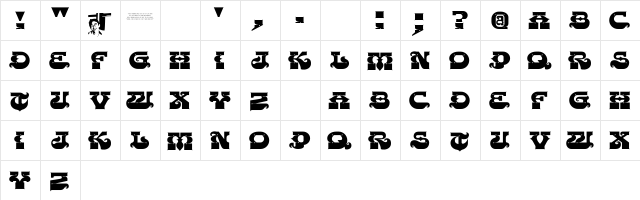
CHASE ZEN PUNJABI Regular
Design Context for CHASE ZEN PUNJABI Typeface
CHASE ZEN PUNJABI is a composed and adaptable typeface that performs quietly and consistently across a wide range of design contexts.